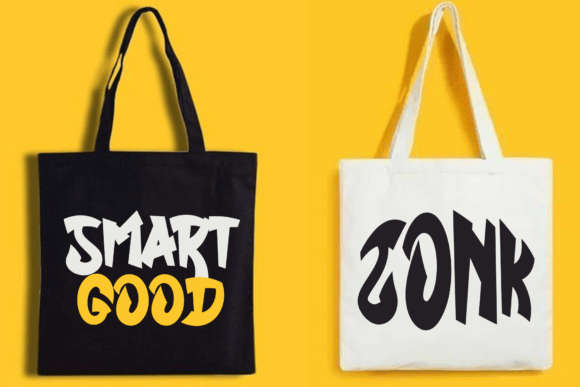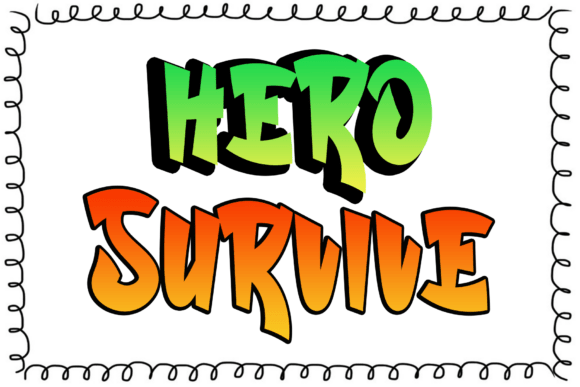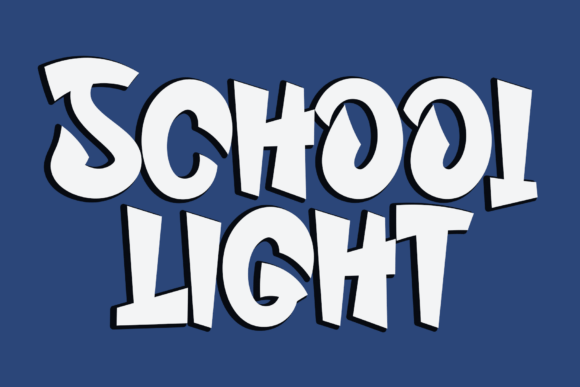
Introduction to Hello Gank Font
Remember that moment when you’re working on a creative project and you need a font that truly speaks to your audience? You want something that screams confidence, something that demands attention, and something that makes your design stand out from the crowd. That’s where Hello Gank Font comes in – a bold, fearless display font that’s sure to elevate your designs and leave a lasting impression.
As a valuable resource for designers, Hello Gank Font offers a unique blend of quirky shapes, energetic flow, and modern design principles. With its transparent background and high-quality design, this font is perfect for projects that require a fun, daring, and urban-inspired aesthetic. Whether you’re looking for a free download or a reliable design resource, Hello Gank Font is sure to meet your needs and take your creative projects to the next level.
Key Features of Hello Gank Font
- Transparent background for seamless integration into various design elements.
- Character set includes a wide range of letters, symbols, and glyphs for diverse creative applications.
- Unique, modern aesthetic that adds a touch of sophistication to any creative project.
Honest Review: Hello Gank Font
I recently came across the Hello Gank Font and was excited to give it a try. As a designer, I’m always on the lookout for high-quality design resources to elevate my creative projects.
One of the standout features of the Hello Gank Font is its transparent background, which makes it incredibly versatile for use on any design. The font itself is clean and modern, with a unique character that sets it apart from more generic fonts.
Here are some of the things that work well with the Hello Gank Font:
- High-quality design with a unique character
- Transparent background for versatile use
However, I did encounter a few limitations with the font:
- Only available in a limited number of weights and styles
- Not as extensive a character set as some other fonts
Overall, I think the Hello Gank Font is a great addition to any designer’s toolkit. While it may have some limitations, its unique character and high-quality design make it a great choice for creative projects.
The Hello Gank Font is ideal for creating eye-catching graphics, logos, and branding materials. It’s also perfect for designing social media graphics, posters, and flyers.